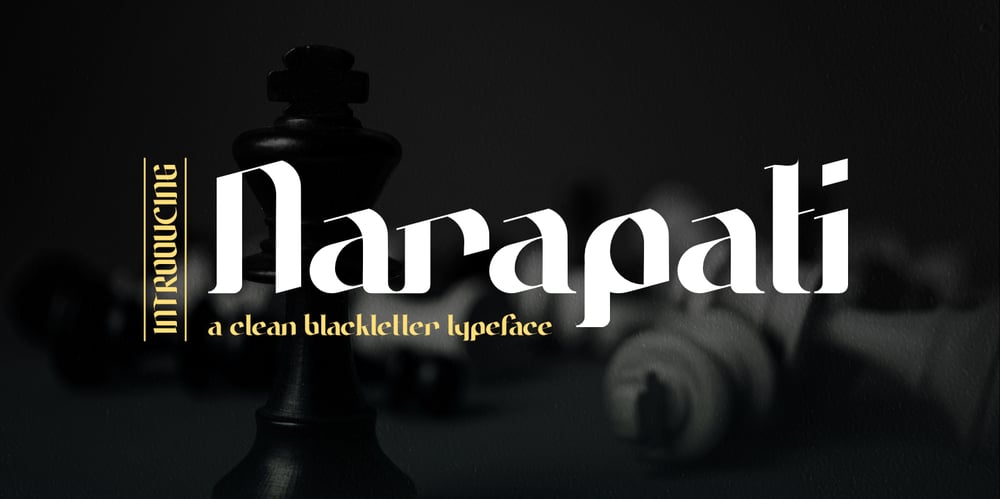
Narapati Font Family was designed by Hazim Mujahid and published by Dotzeem. Narapati contains 1 styles and family package options. Introducing, Narapati is a clean Blackletter Typeface for your Design that is fit for your next creative project such as logos, product packaging, Logotype, Letterhead, Poster, Apparel Design, Label, and etc.This Narapati Typeface includes also support a Multilingual Characters.